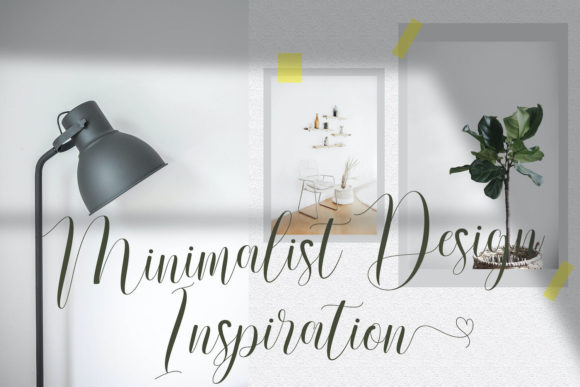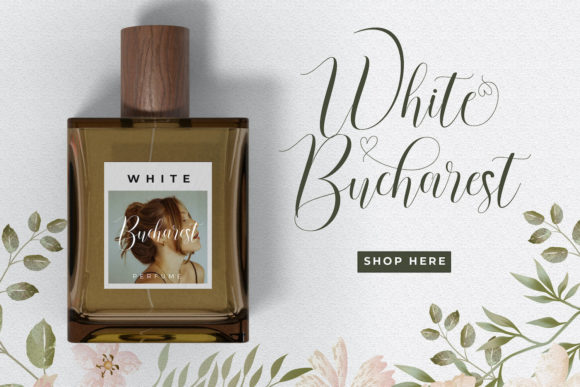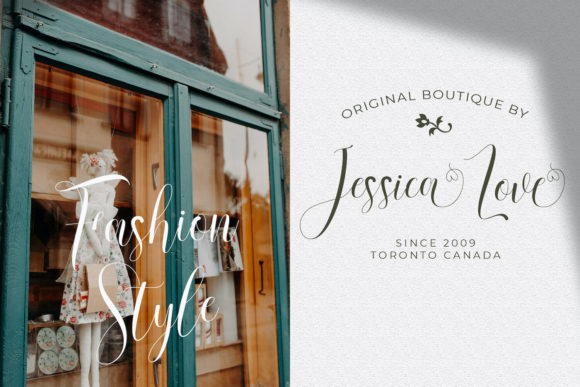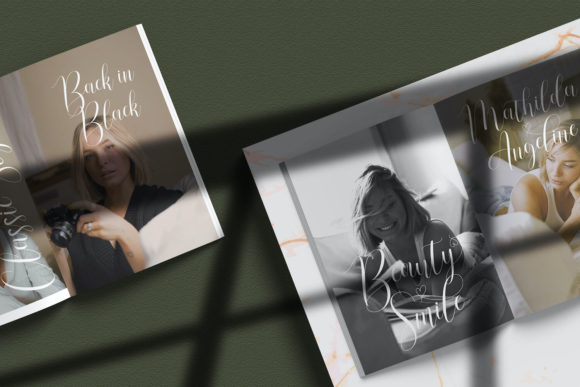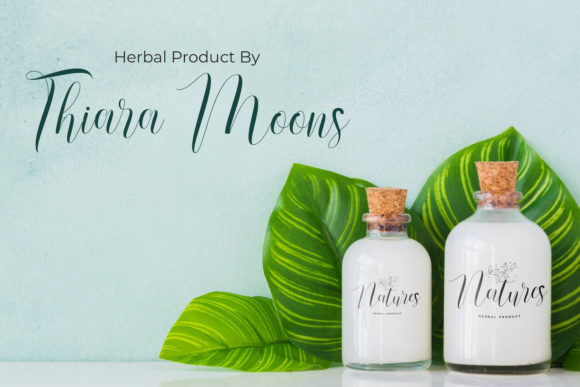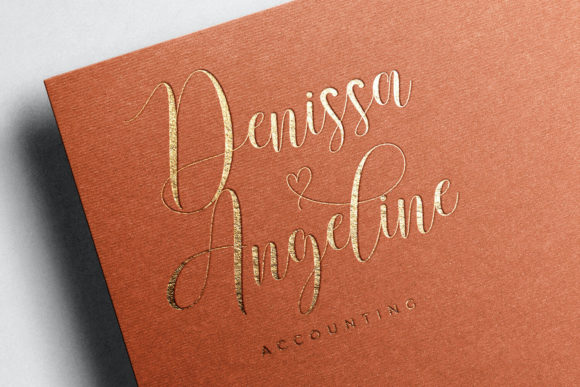
Introduction to Rusthina Font
There’s something magical about the moment when a design project comes together – the perfect combination of colors, shapes, and typography that transport your audience to a new world. For designers, this feeling is often the result of having access to the right design resources, like a high-quality font that elevates their creative vision. One such treasure is the Rusthina Font, a beautifully crafted handwritten font that’s sure to captivate your audience.
With its classy calligraphic influences and contemporary feel, the Rusthina Font is a versatile design resource that can be used in a variety of creative projects, from elegant invitations to modern branding materials. Its transparent background makes it easy to layer and manipulate, while its PUA encoding allows for seamless access to all the glyphs and swashes. Whether you’re working on a free download or a paid project, this font is sure to bring your designs to the next level.
Whether you’re a seasoned designer or just starting out, the Rusthina Font is an invaluable addition to your design arsenal. Its high quality and versatility make it a valuable resource for any creative project, and its free download availability makes it accessible to designers of all levels. In this article, we’ll dive deeper into the world of the Rusthina Font and explore its many features and uses.
Key Features of Rusthina Font
- Includes a range of characters and glyphs for comprehensive typography
Honest Review: Rusthina Font
As a designer, I’m always on the lookout for high-quality design resources that can elevate my creative projects. The Rusthina Font is one such find that caught my attention. With its elegant, cursive script, it’s perfect for adding a touch of sophistication to any design.
- ✨ Works well for headings and titles, especially for wedding invitations, birthday cards, and other special occasions.
- ✨ The font’s transparent background makes it easy to layer with other design elements, giving you more creative control.
- ⚠️ Limited character set, which may not be suitable for longer texts or paragraphs.
- ⚠️ May not work well for body text, as it can be quite ornate and difficult to read in larger quantities.
Overall, the Rusthina Font is a great addition to any designer’s toolkit. While it has its limitations, its unique style and high-quality design make it a valuable resource for any creative project. With a little creative planning, you can use this font to add a touch of elegance and sophistication to your designs.
Tips for Getting the Most Out of Rusthina Font
For optimal results, experiment with different font sizes, colors, and styles to achieve the desired look. Additionally, combine Rusthina Font with other design resources, such as graphics and images, to create visually appealing designs.
Rusthina Font is suitable for a variety of creative projects, including logos, business cards, brochures, and social media graphics. Its high-quality design and transparent background make it an ideal choice for designers and non-designers alike.